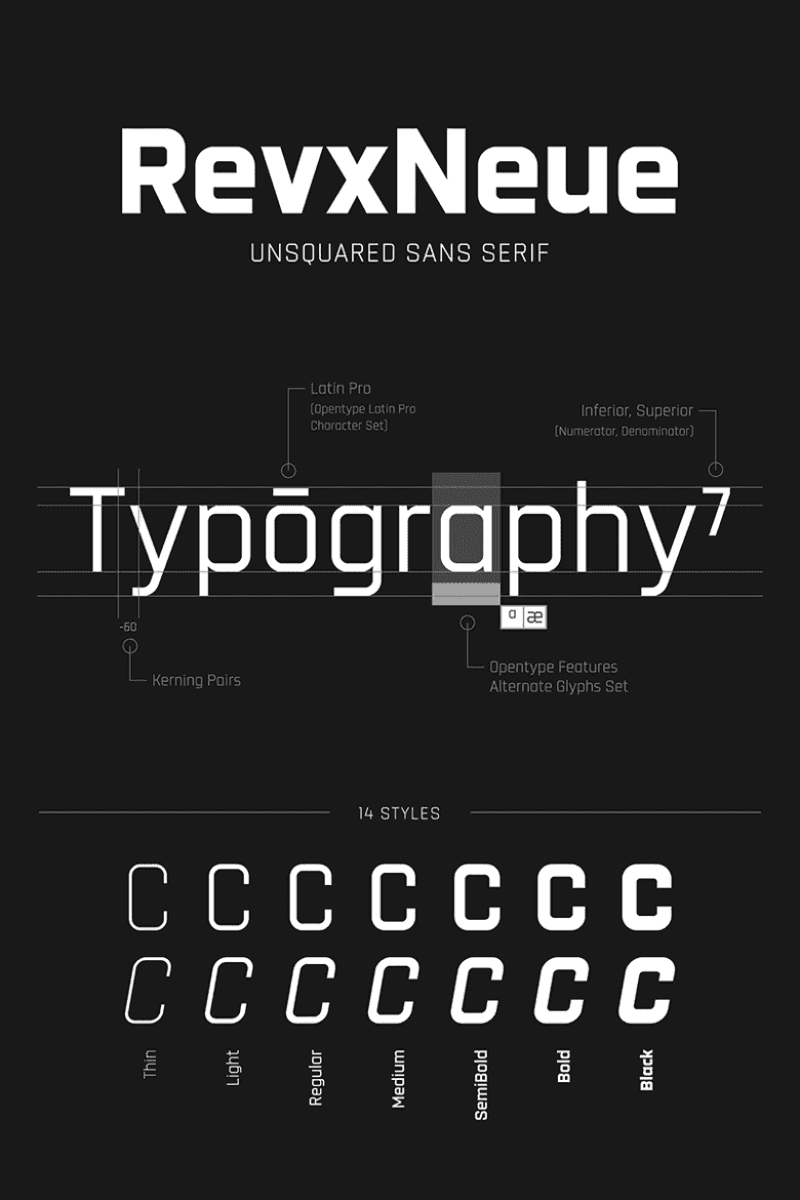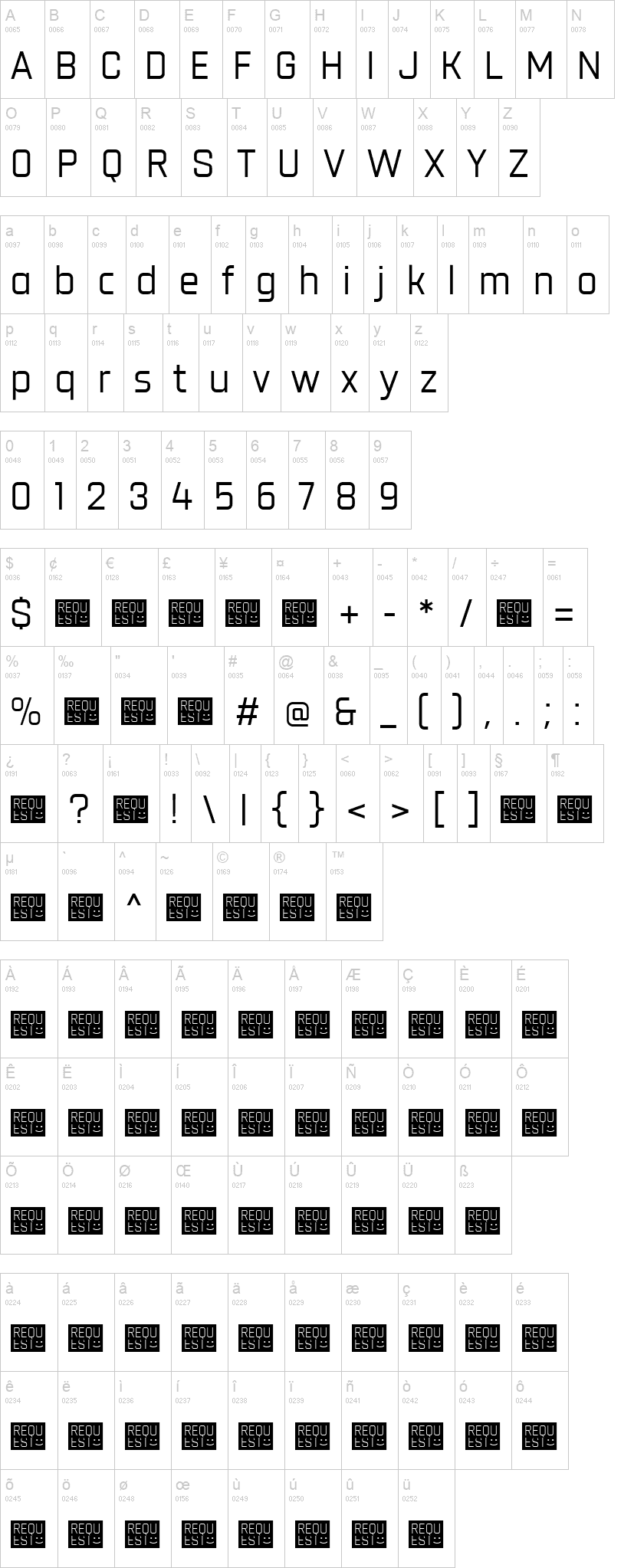
Revx New Sans is a modern sans serif font that is not squared; it has seven uprights, fourteen styles, and suitable italics. Furthermore, its Open Type Latin Pro character set offers other feature sets such as open types, alternate character sets, kerning pairs and many others in order to make sure that this font will be fully exhibited.